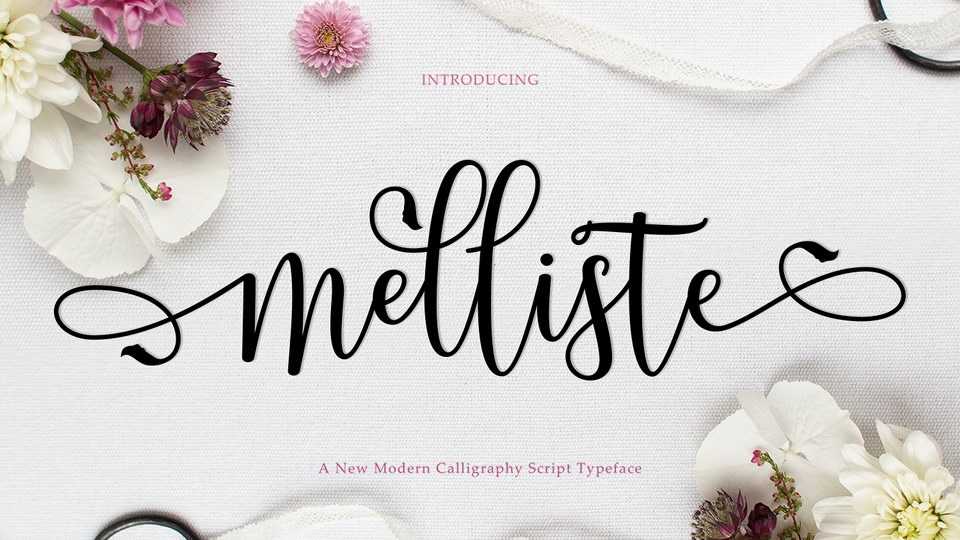
Download Melliste font, a natural handwritten script with beautiful swashes. Melliste font is perfect for logos, invitations, stationery, wedding designs, social media posts, advertisement and more.
Designer: Bexxtype